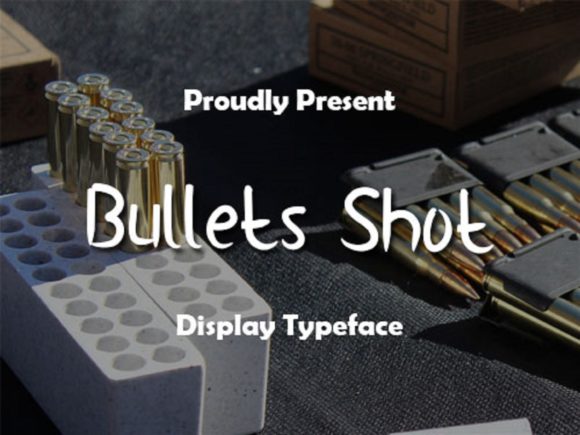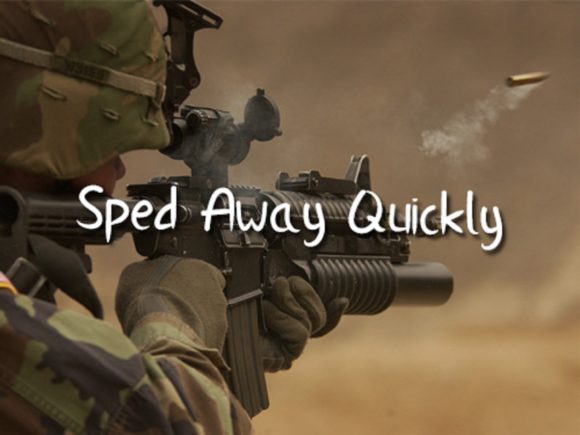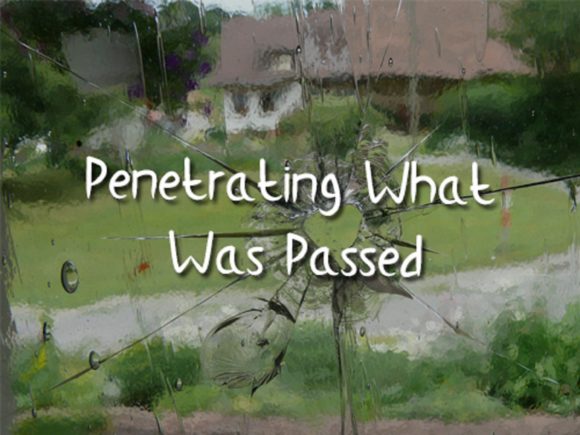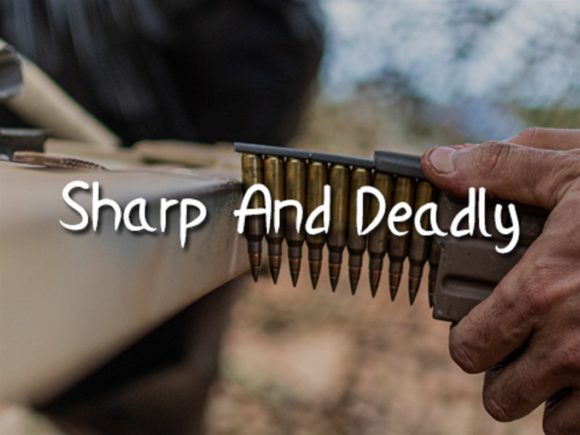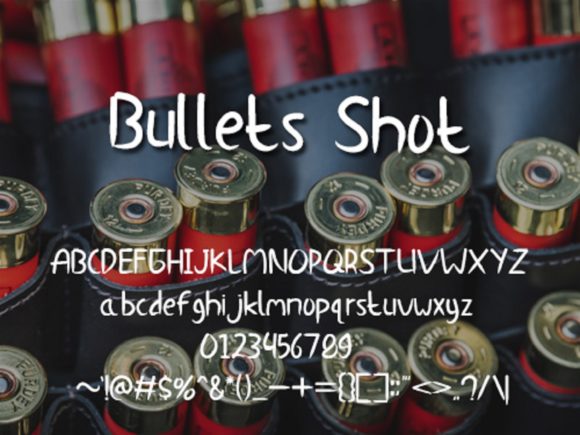
Bullets Shot Font
About Bullets Shot Font
Bullets Shot is a cool, chic and interesting handwritten font. Whether you use it for cartoon related designs, children games or just any creation that requires a lovely touch, this font will be an amazing choice.